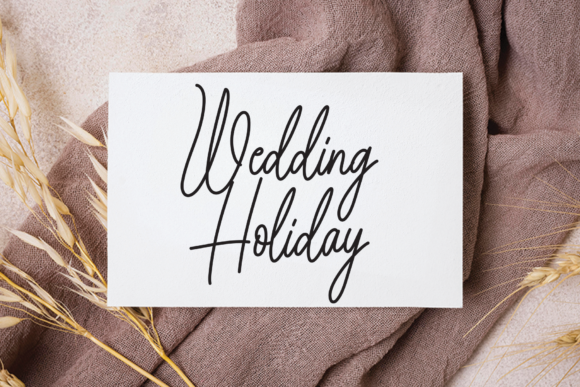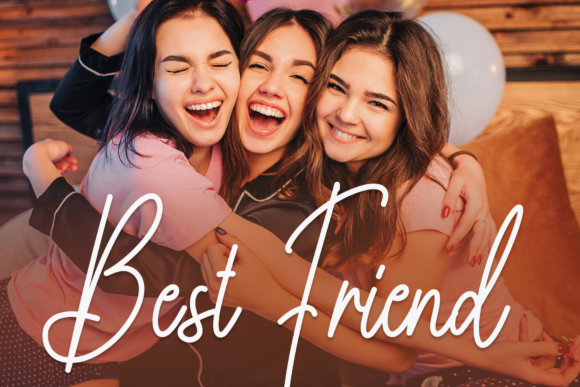
Ramadan Signature Font
db-ku.com - Script & Handwritten -- Ramadan Signature is a delicate and fashionable script font. It is perfect for any branding project such as logos, t-shirt printing, creative products, and more. It will look extraordinary in a variety of contexts.